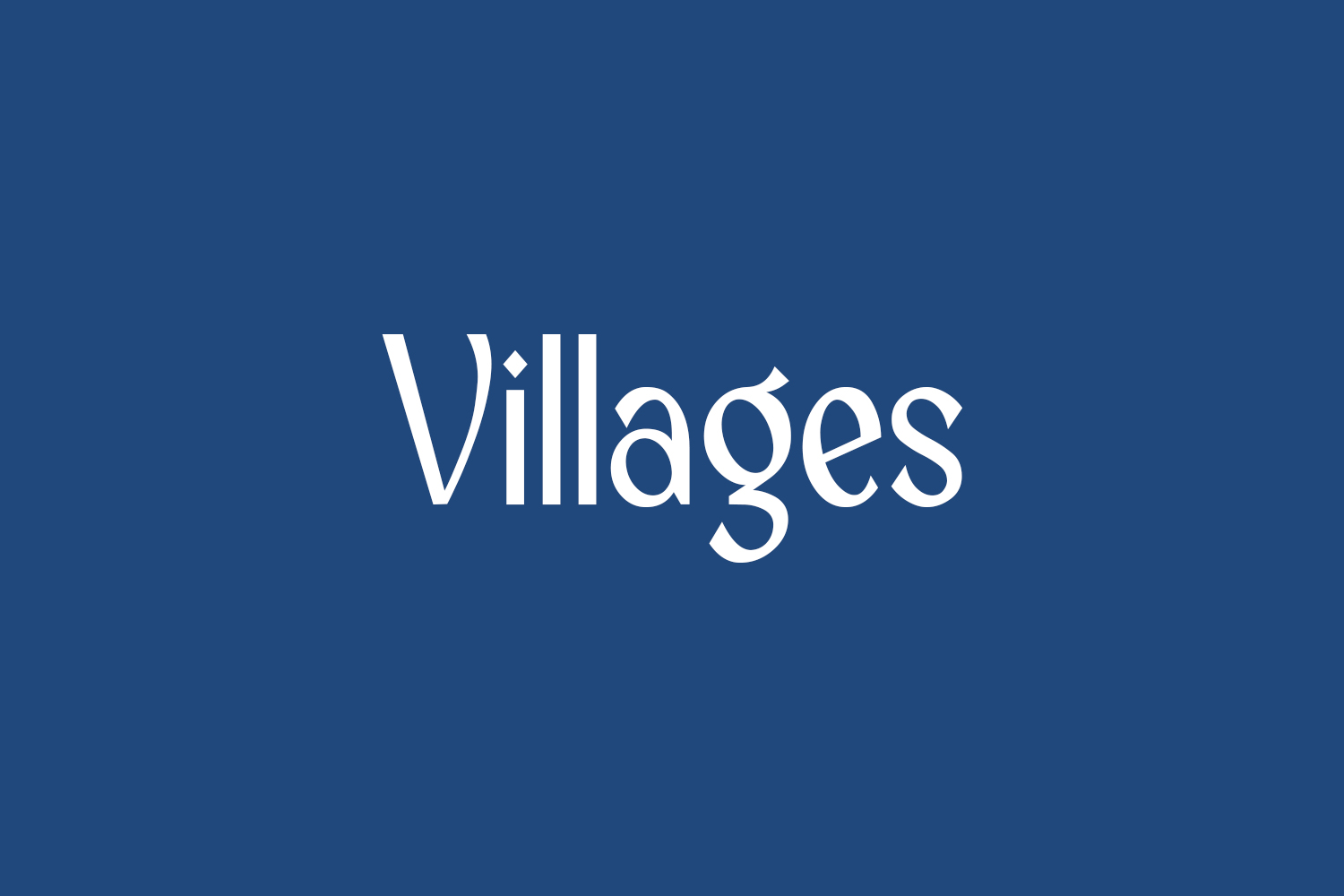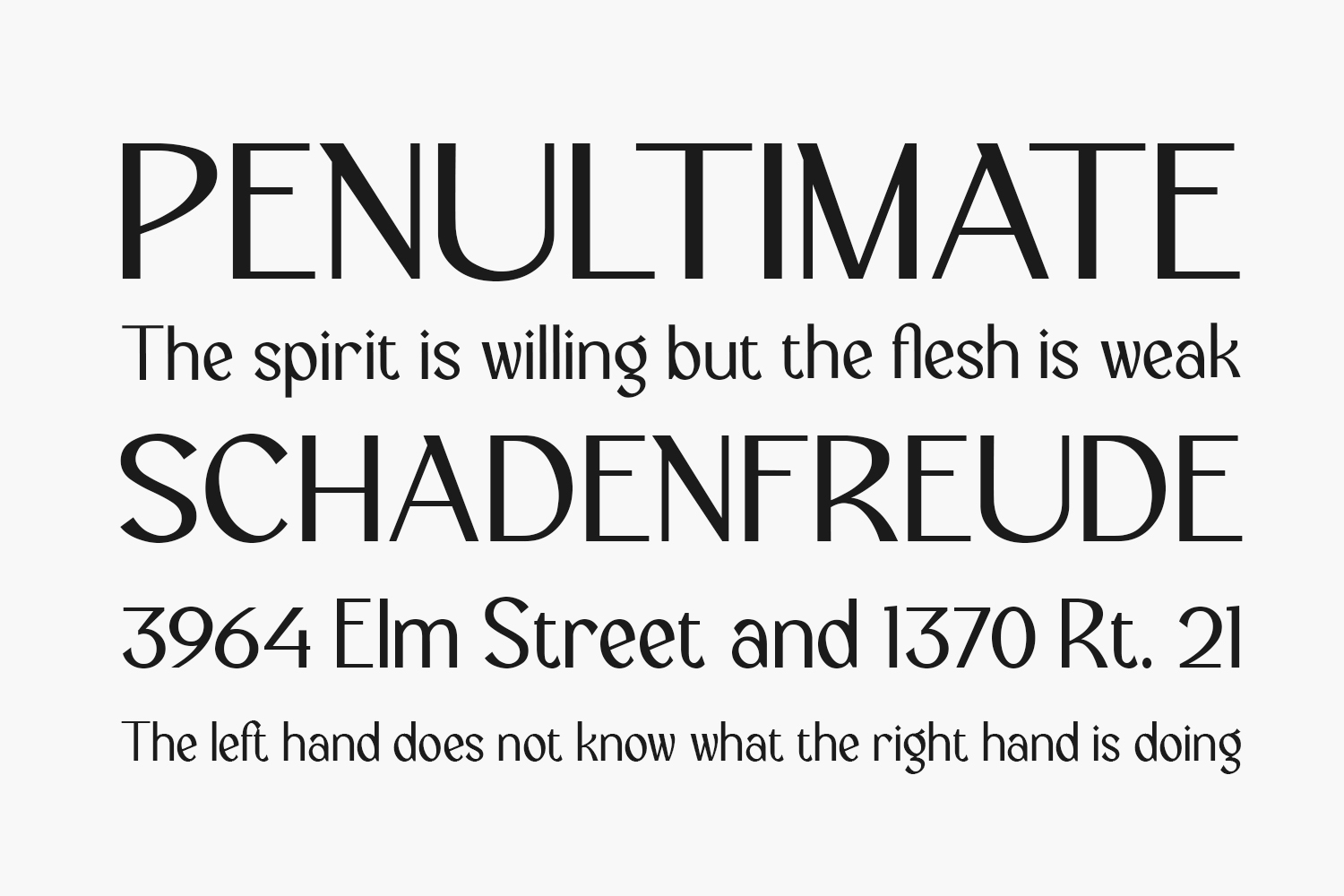
Villages Free Font is an elegant and modern sans serif font. Use this font for any crafting project that requires a personalized look. Villages Free Font was designed by Greentrik6789 and is free for personal use only. Please purchase the full version for commercial use.